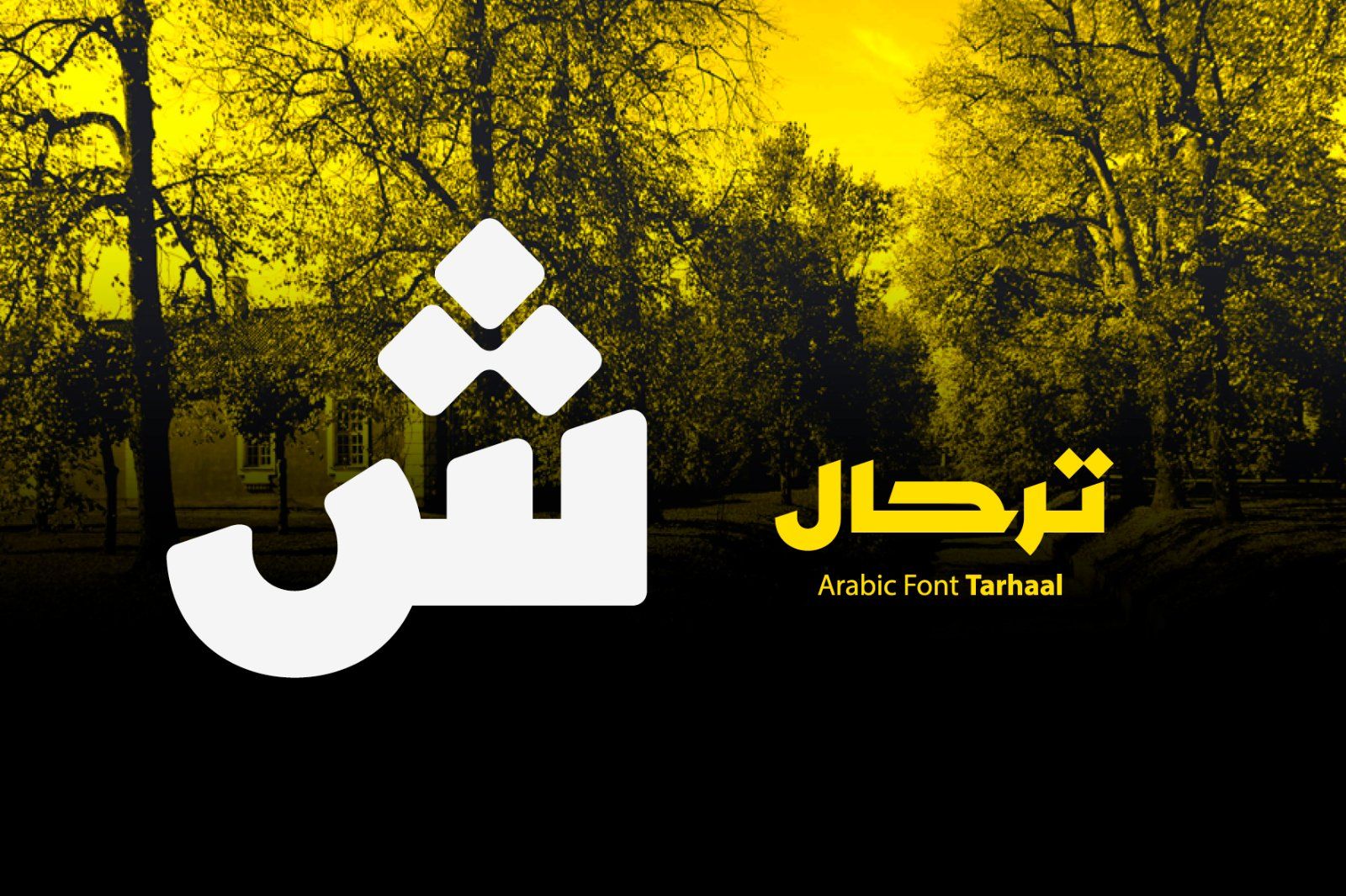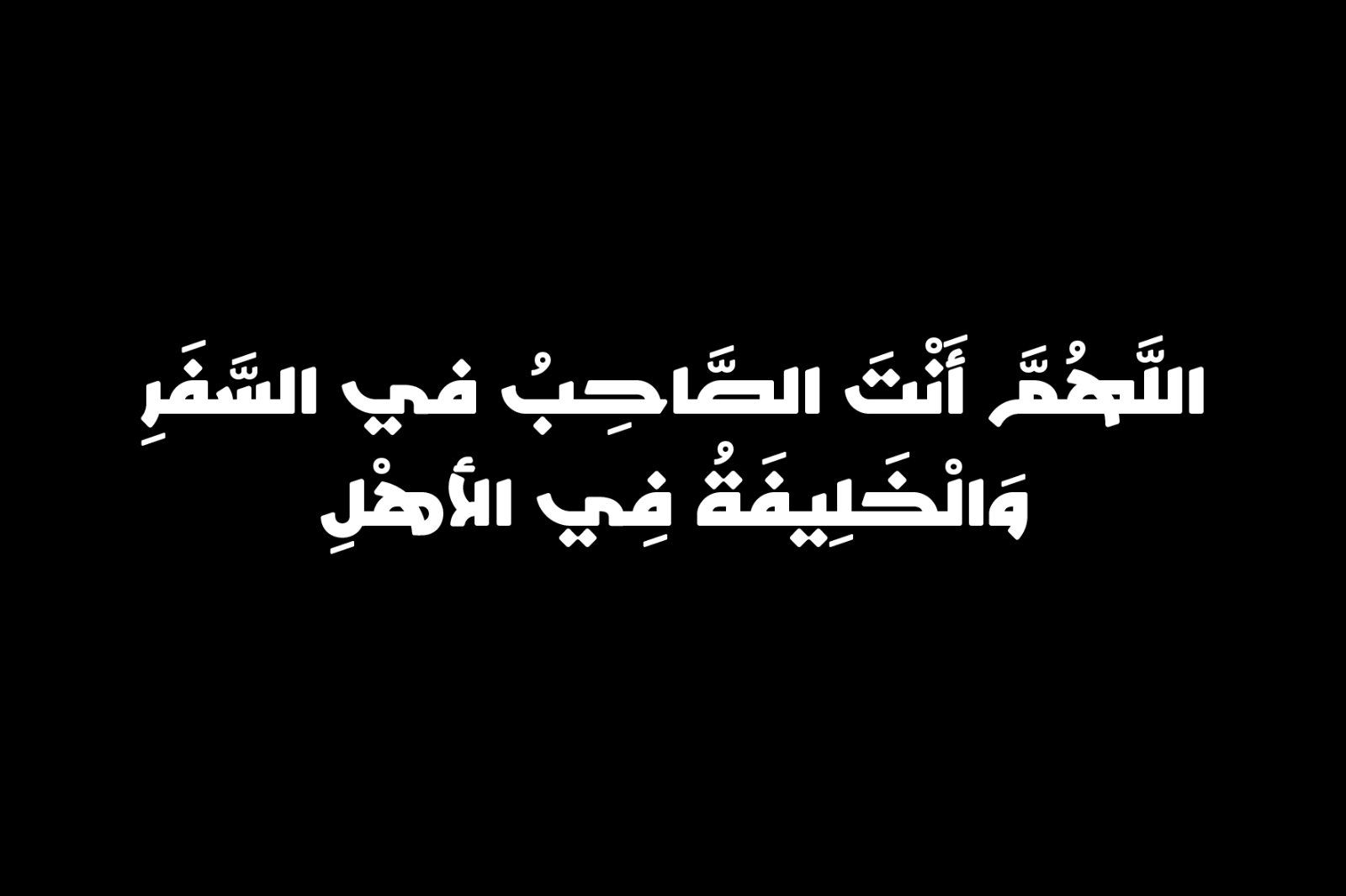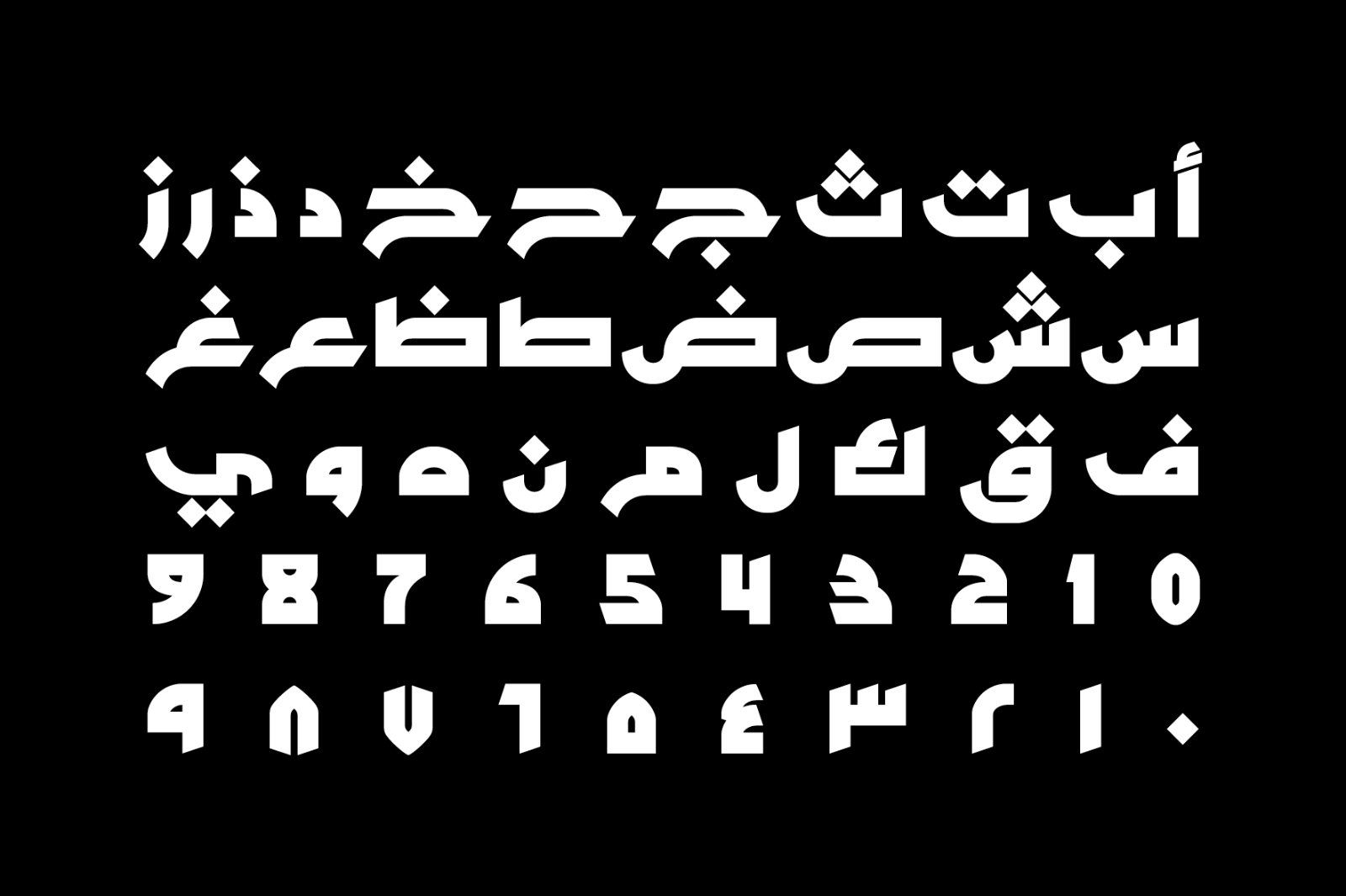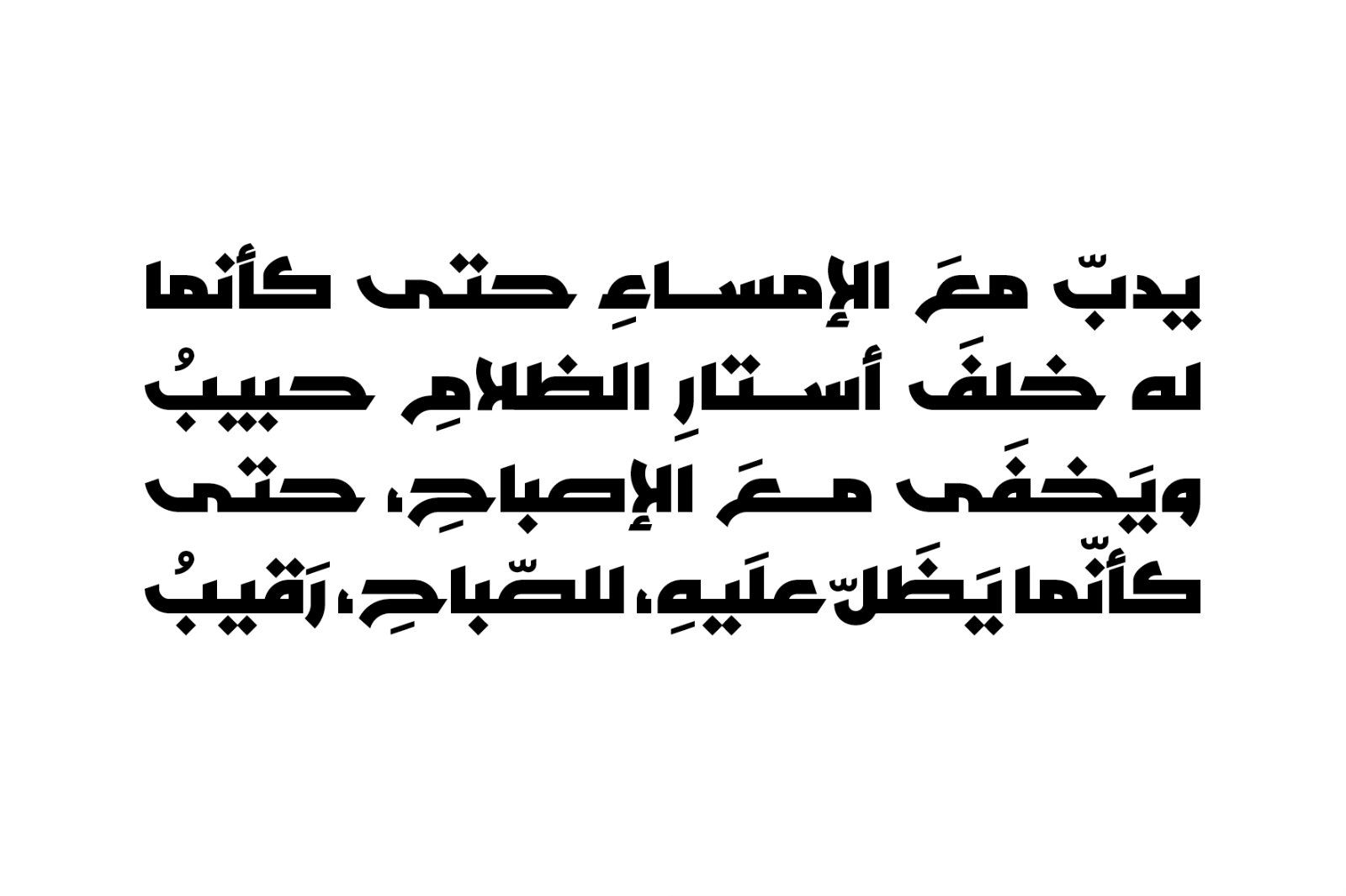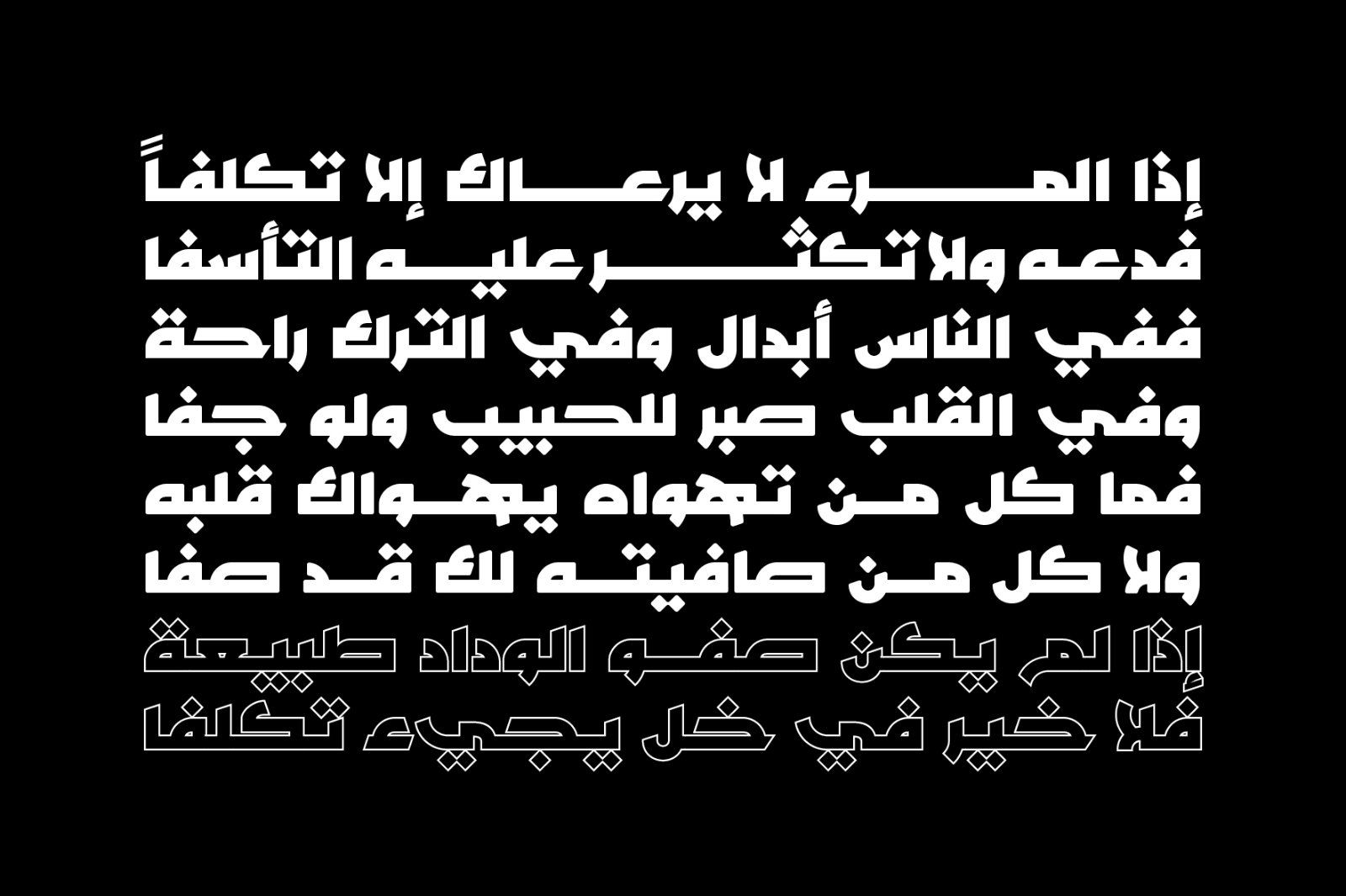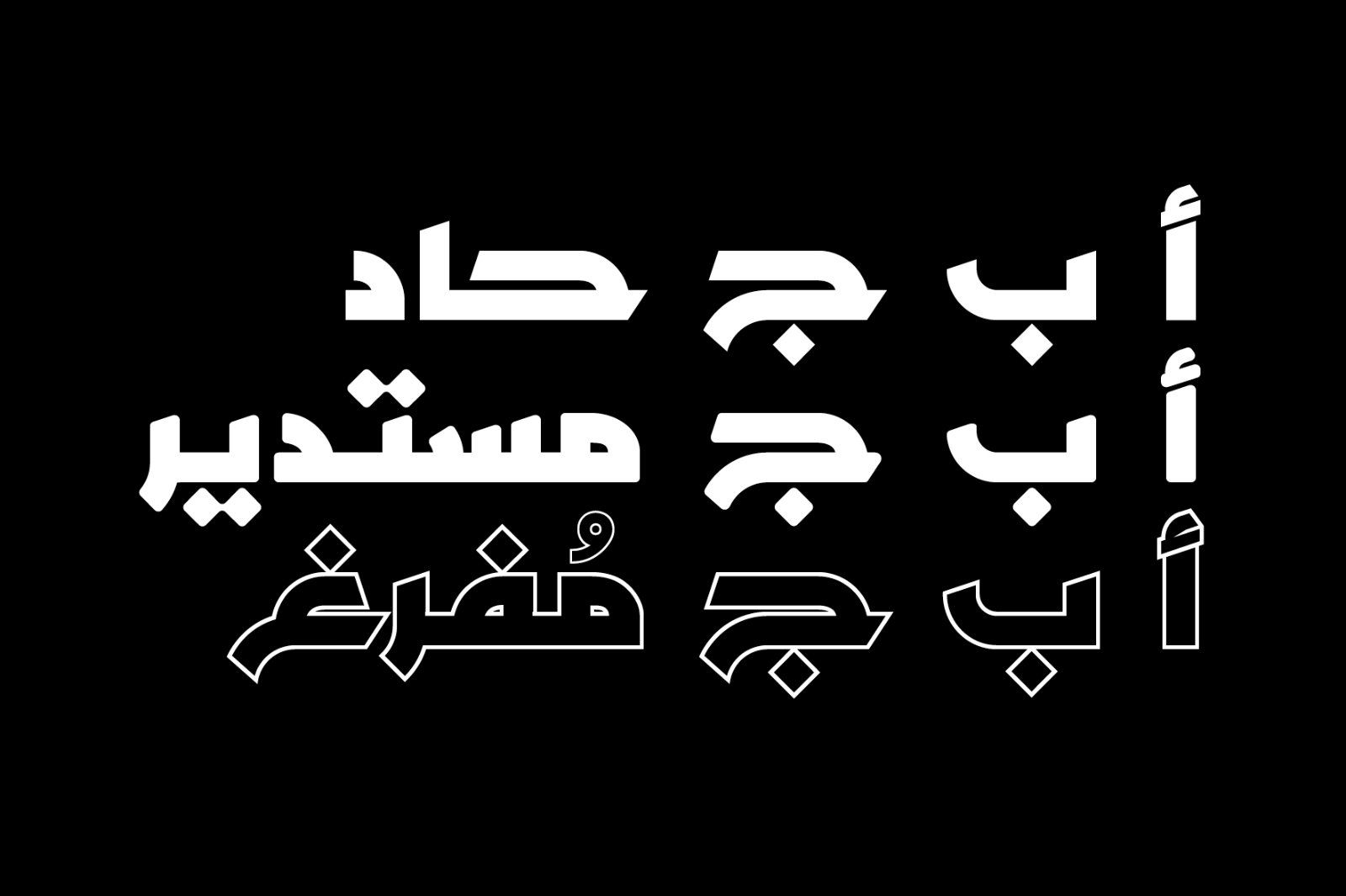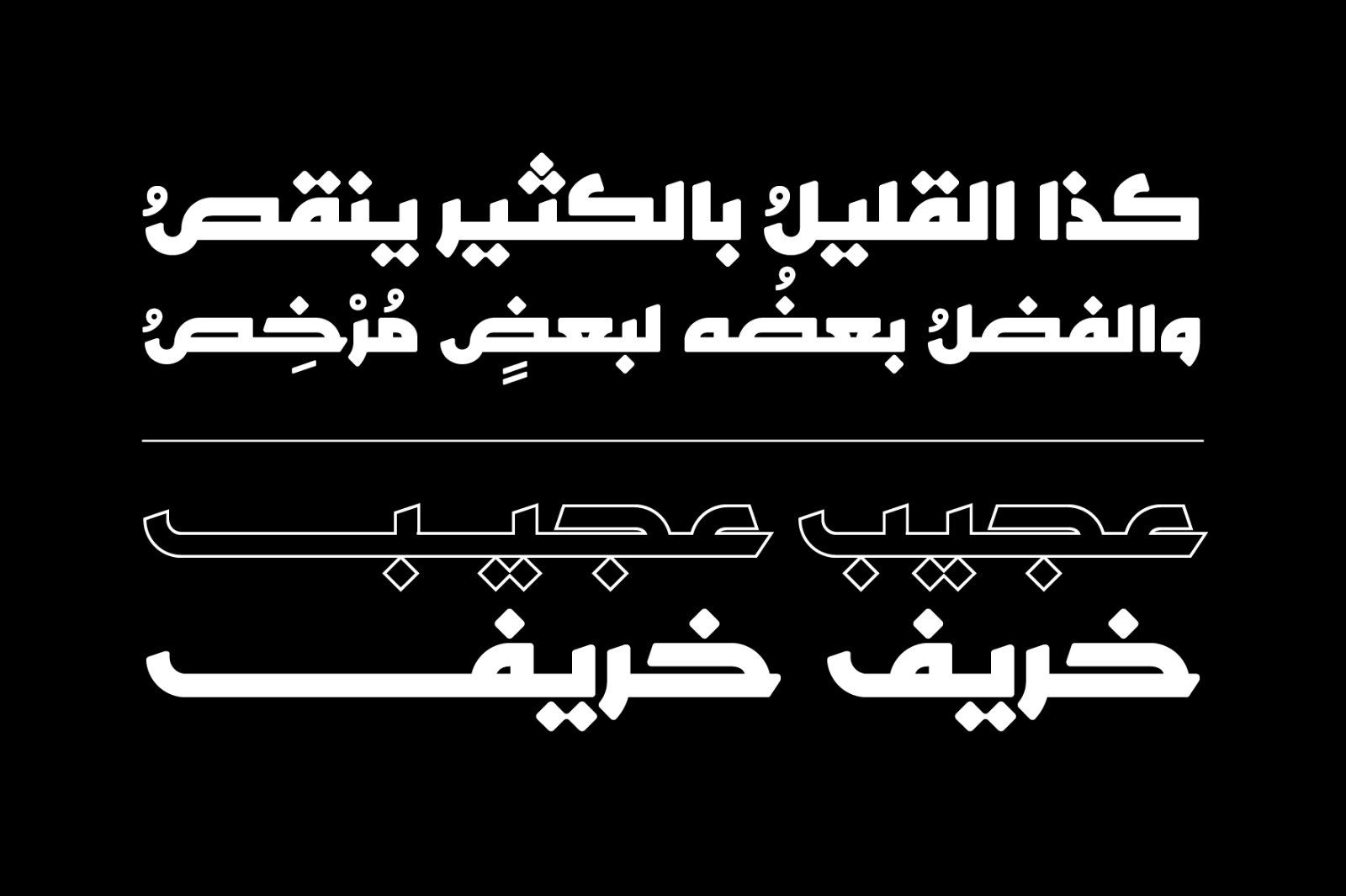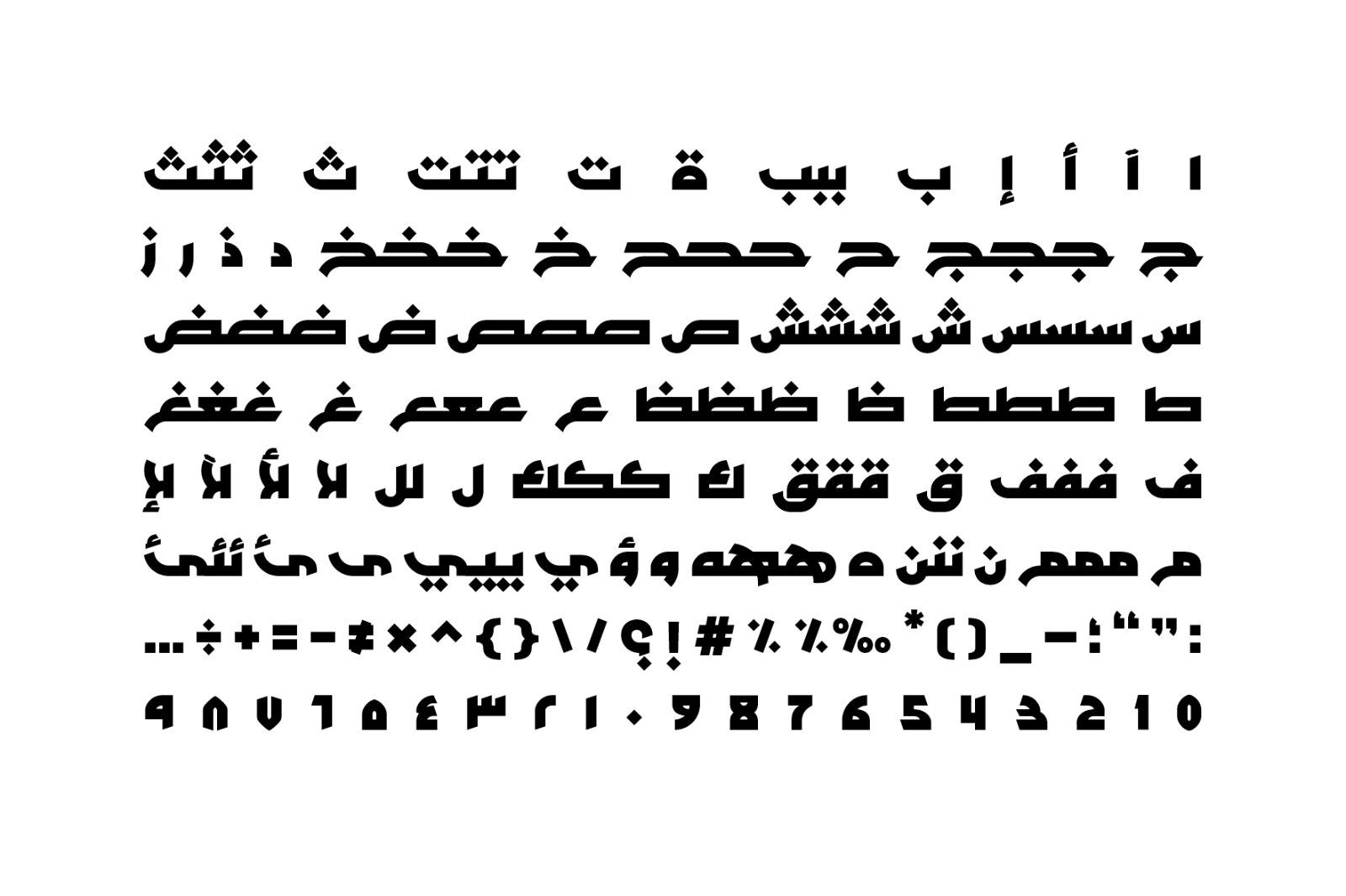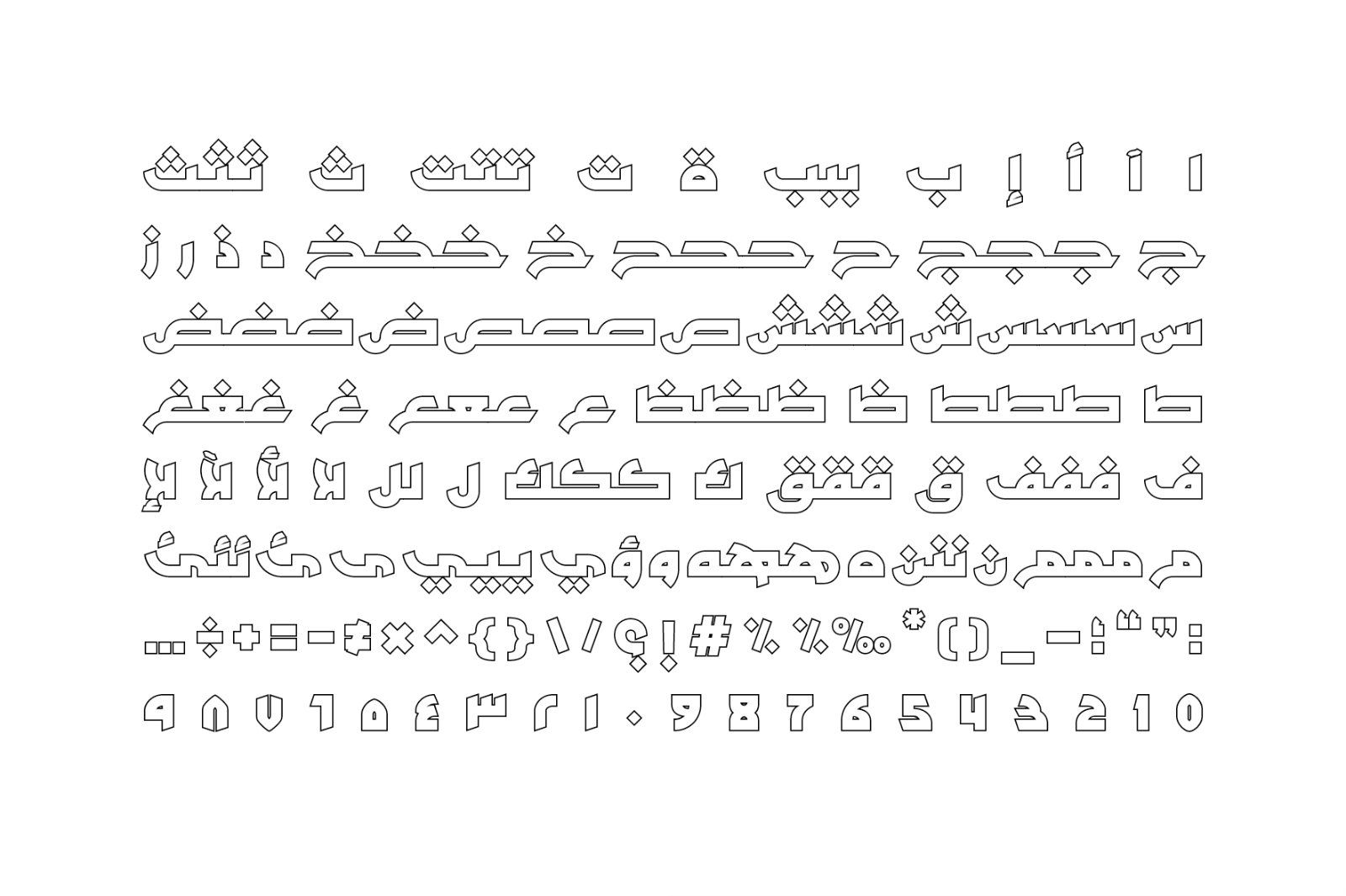
Tarhaal is an Arabic display typeface distinguished by its distinctive design, characterized by a robust geometric framework and bold letterforms. It is available in three variations: Sharp, Rounded, and Outlined, making it suitable for a wide range of creative projects. Tarhaal supports Windows, Mac and mobile applications.